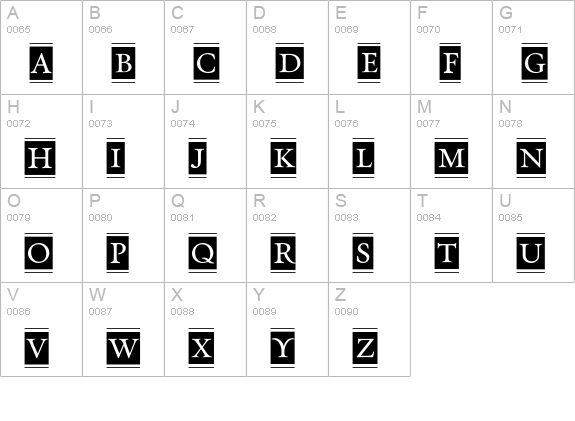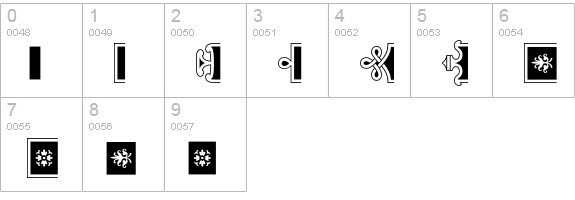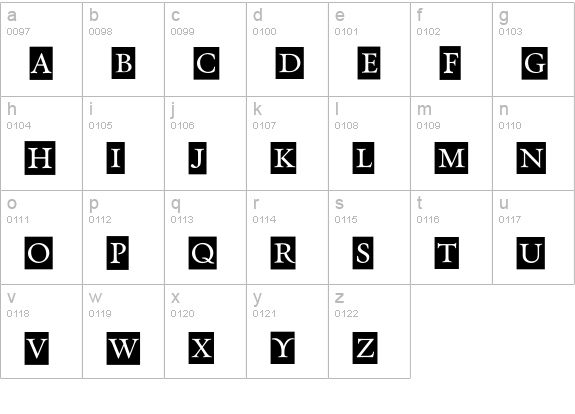
RequiemOrnaments-HTF-Text Font Details
RequiemOrnaments-HTF-Text is an exquisite font that embodies the essence of elegance and sophistication. With its intricate details and delicate curves, this font adds a touch of grace to any design project. Whether you're creating wedding invitations, branding materials, or editorial layouts, RequiemOrnaments-HTF-Text is sure to capture attention and leave a lasting impression. What sets this font apart is not only its beauty but also its versatility. It seamlessly blends with various typefaces, making it an ideal choice for creating unique and captivating compositions. Each glyph is meticulously crafted, ensuring flawless execution and legibility in any size or context. But what truly sets RequiemOrnaments-HTF-Text apart is that it is freely available to download at FontsMarket.com. Yes, you read that right! This exceptional font can be yours without breaking the bank. FontsMarket.com offers a wide range of high-quality fonts, and RequiemOrnaments-HTF-Text is just one of the many treasures waiting to be discovered. So why wait? Enhance your designs with the timeless beauty of RequiemOrnaments-HTF-Text. Download it now for free at FontsMarket.com and unleash your creativity like never before.